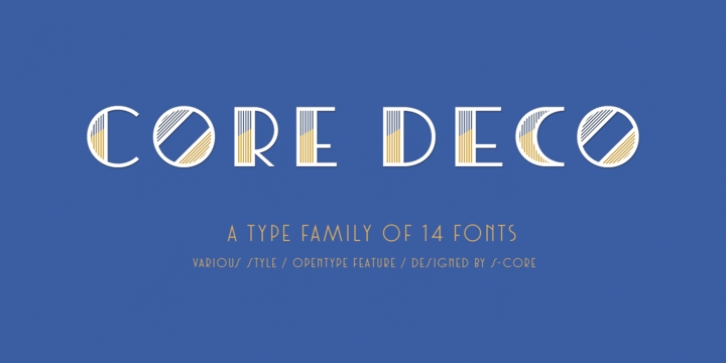
Core Deco is an Art Deco Fonts Family which consists of various styles, inspired by some art deco posters from late 1930s to 1950s.
There are two major styles of this type family. One is thin and elegant and another has strong contast. Each style has alternative shape like 3-D structures, patterns, outlines and so on. Except for Core Deco, others are named Core Deco A,B,C as their styles. Basically every single font of Core Deco family has geometric shape and two width variations of characters, narrow and wide. Despite of different styles, every font goes well together because of their common parts. Though it’s not intended, some similar styles could be layered together.
Core Deco family contains complete Latin 1252, Central European 1250 and Turkish 1254 character sets, and also each font includes support for style alternative features.